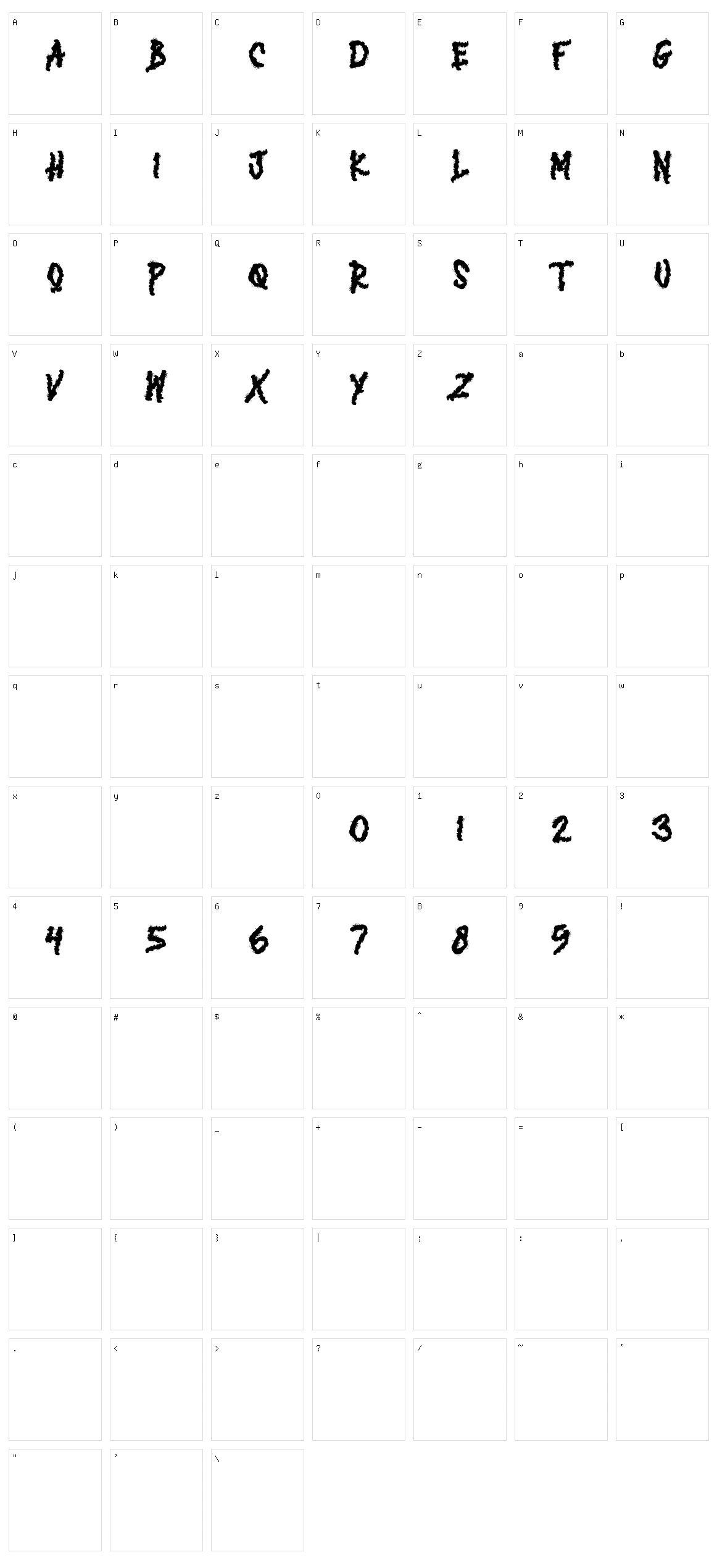
The free font Tarantula is carefully designed by Amin Studio, showcasing a thoughtful balance of creativity and usability and falls under the Horror font style. When you download the ZIP file, it contains only 442.68 KB of font files, making it lightweight and quick to download. Please review the license details below to understand permitted usage and distribution rights. If license information is not available, we recommend using this font for personal projects only or contacting the author directly for commercial usage permissions.